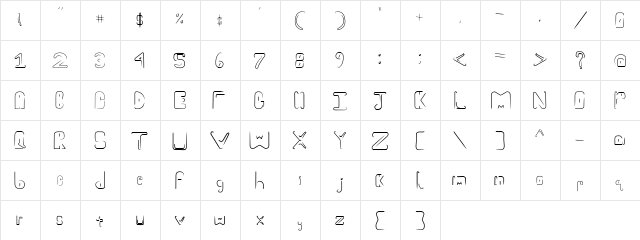
Clipped Regular
| Foundry | Ashley Smith |
Design Context for Clipped Typeface
Clipped takes a measured approach to typography — its balanced proportions and neutral character make it a reliable workhorse for both digital and print work.